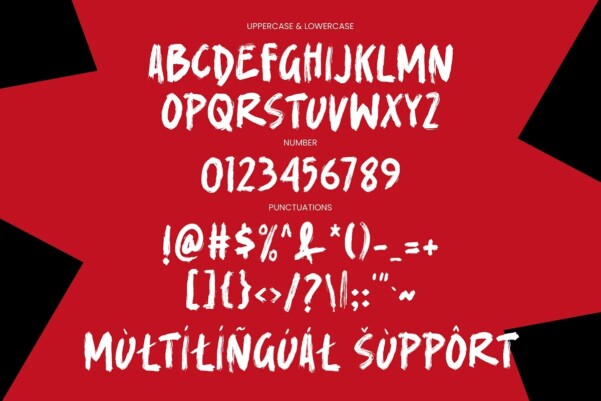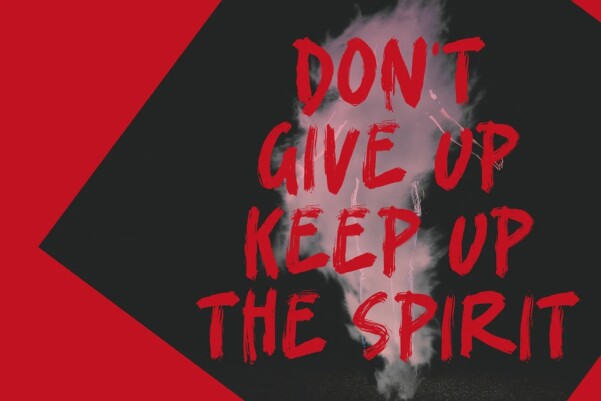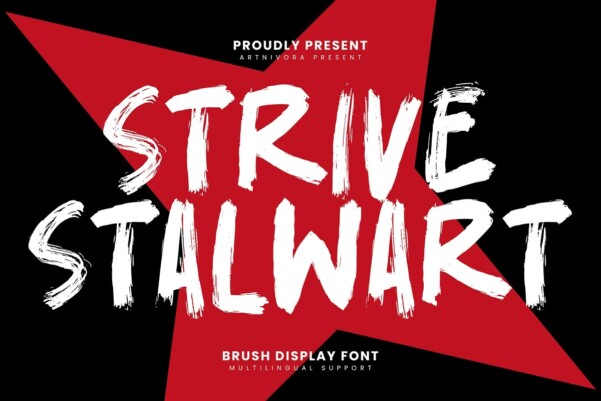
Strivestalwart Font
Strivestalwart Font, a simple and brush display font. So perfect for you who needs a typeface for logo designs, magazine, social media, brochure, and many more.